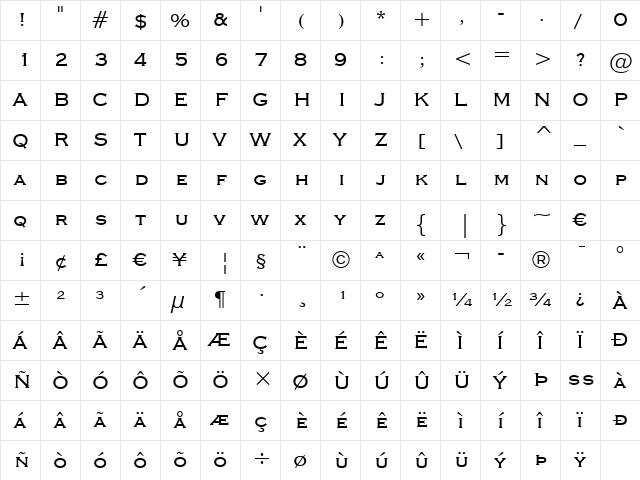
font122 Regular
Design Context for font122 Typeface
font122 takes a measured approach to typography — its balanced proportions and neutral character make it a reliable workhorse for both digital and print work.